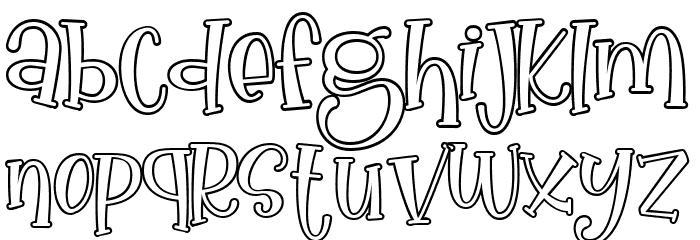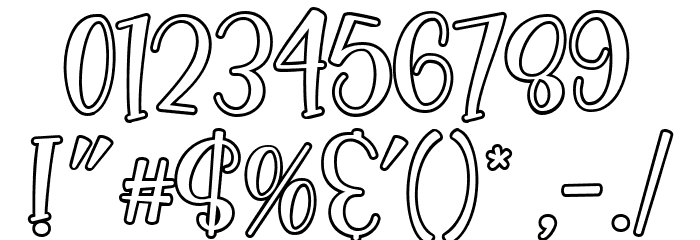
Nona Manis Outline Font
This playful and whimsical font features an outline style that gives it a unique and eye-catching appearance. The characters are rounded with a slight bounce, adding a sense of fun and movement. The uppercase and lowercase letters maintain a consistent style, with the uppercase being slightly taller and more pronounced. Numbers and special characters are designed to match the playful aesthetic, making them suitable for creative projects. The font's outline nature allows for creative coloring and layering, enhancing its versatility in design applications.
A playful, outline-style font with rounded, whimsical characters.
- Font: Nona Manis Outline
- Proposed Projects: Ideal for children's books, playful branding, greeting cards, and creative posters.
- Overall Style: Playful
- Use Case: Headlines, Logos, Creative projects